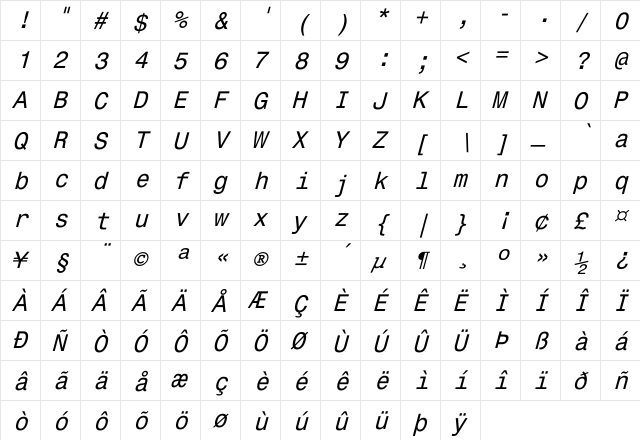
Monospace821 Italic
Design Context for Monospace821 Typeface
Monospace821 uses fixed-width spacing throughout, giving it the structured, systematic character associated with coding environments and technical documentation. Its italic angle brings a sense of urgency and motion to the letterforms.